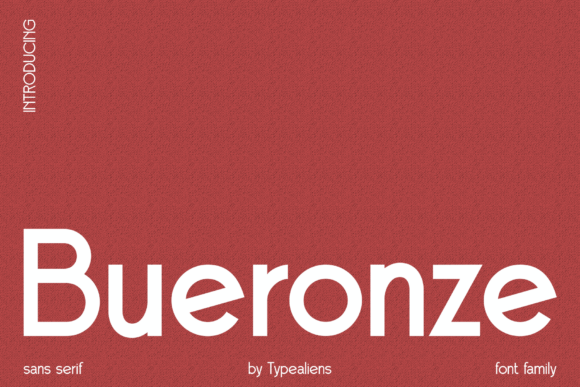
The Bueronze Font: A Modern Sans Serif Marvel
I’ll never forget the design project that led me to discover the Bueronze font. I was working on a modern branding campaign for a trendy new coffee shop, and I was struggling to find the perfect font. The client wanted something clean, easy to read, and versatile enough to work across various platforms – from social media to merchandise. That’s when I stumbled upon Bueronze, a variable sans serif font that has since become a staple in my design toolkit.
An Honest Review of Bueronze
• ✨ Versatility: With over 15 variations, Bueronze offers a range of options to suit different design needs.
• ✅ Clean and Easy to Read: The font’s sans serif design makes it perfect for body text and articles.
• 💡 Adjustable Letter Thickness: From Bueronze Thin to Bueronze Black, you can customize the font to fit your design style.
• 🖋️ Italic Options: The font comes with italics, adding an extra layer of flexibility.
While Bueronze is an excellent font, there are a few things to keep in mind:
• 🤔 Glyph Limitations: As with any font, there may be limitations to the number of glyphs available. However, Bueronze offers a robust set of characters to cover most design needs.
• ⚠️ Variable Font Compatibility: Some older design software may not support variable fonts, so be sure to check compatibility before using Bueronze.
The Story Behind Bueronze
Bueronze was designed with the goal of creating a versatile and modern sans serif font. The design team aimed to craft a font that would be both clean and highly legible, making it perfect for a wide range of applications. By incorporating variable font technology, Bueronze offers a range of weights and styles, ensuring that it can adapt to any design need.
Q: What is a variable font, and how does Bueronze utilize this technology?
A: A variable font is a type of font that allows for adjustable weight, width, and style. Bueronze uses this technology to offer over 15 variations, making it an extremely versatile font for designers.
Q: Does Bueronze support non-English languages?
A: Bueronze offers a robust set of characters to support many languages. However, it’s essential to review the font’s character set to ensure it meets your specific language requirements.
Q: Can I use Bueronze on both digital and print materials?
A: Absolutely! Bueronze is designed to work well across various platforms, including digital and print materials. Its clean and legible design makes it perfect for body text, headings, and more.